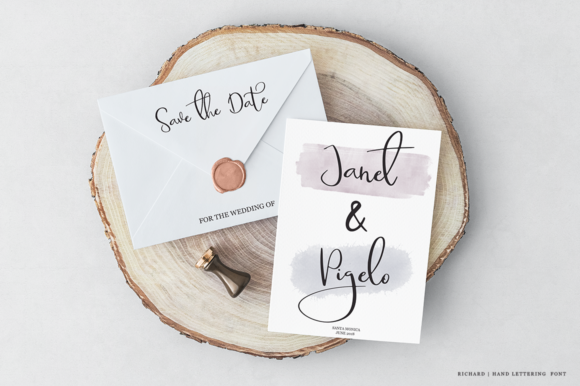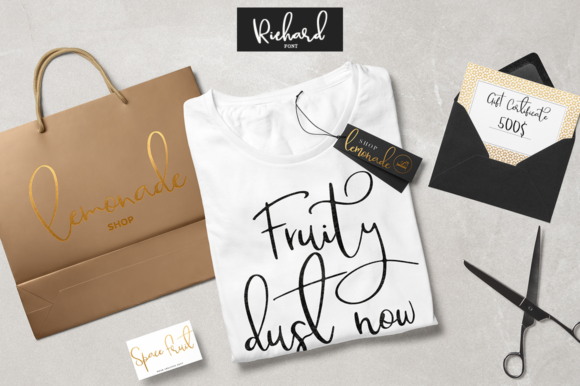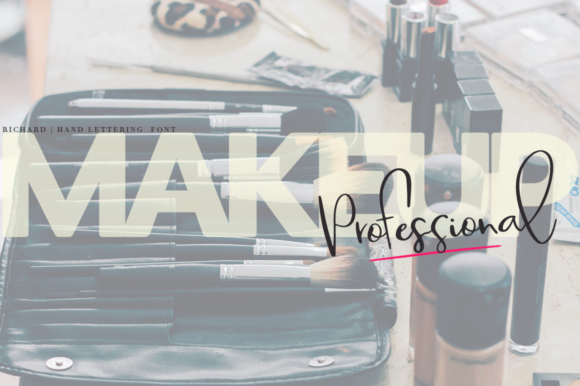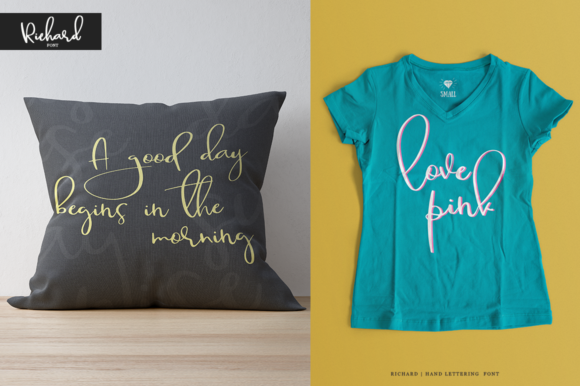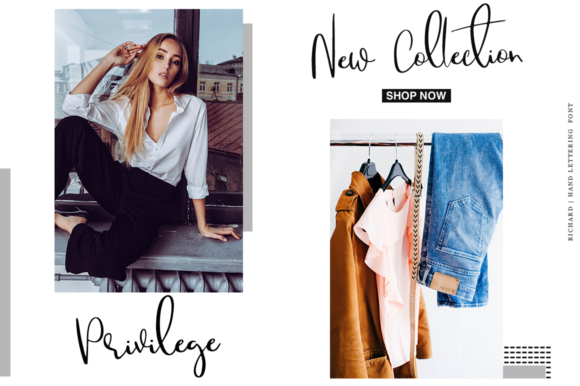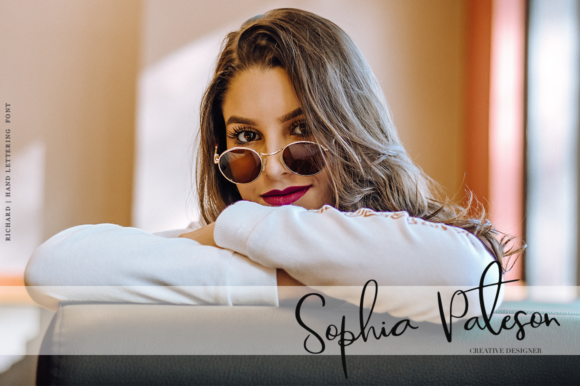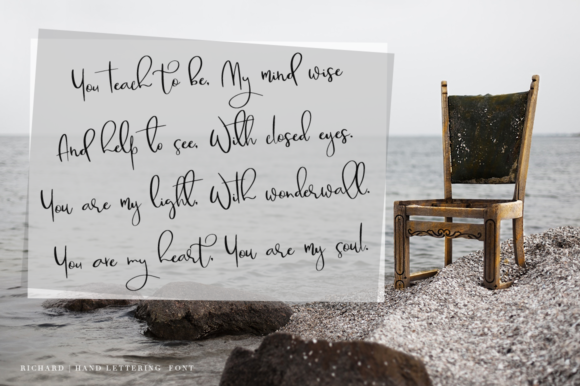
Richard Font
About Richard Font
Richard is a beautiful and elegant calligraphy font, ideal for use in a wide range of project types. This font adds a brand-able appeal, and works well when combined with a secondary, more simple font.